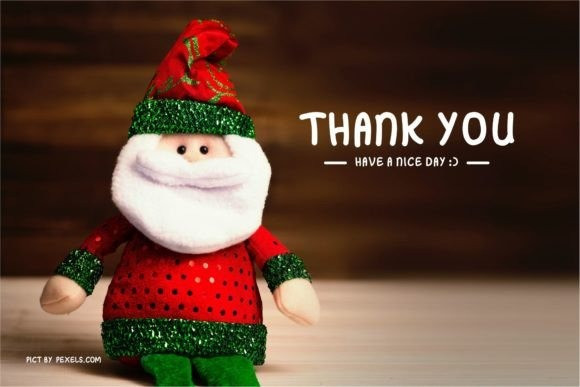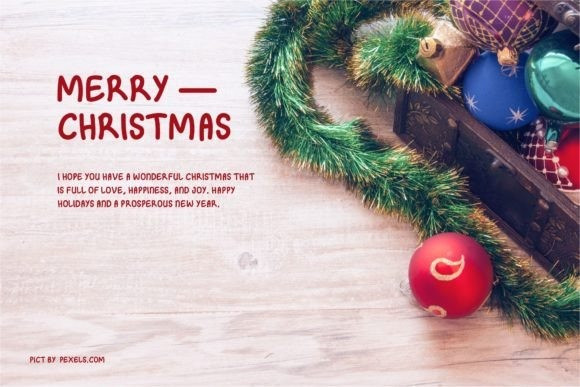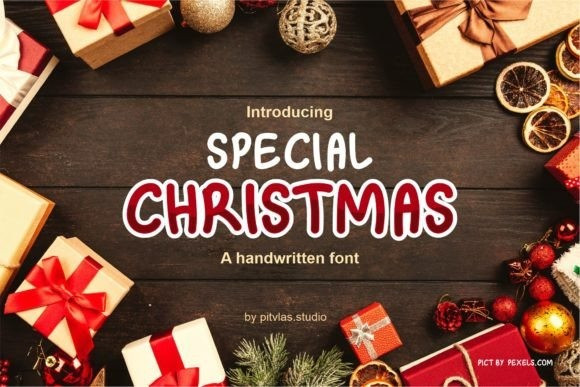
Special Christmas Font
Special Christmas Display Font is a cute and friendly handwritten font. Whether you’re using it for crafts, digital design, presentations, or making greeting cards, this font has the potential to become your favorite go-to font, no matter the occasion!